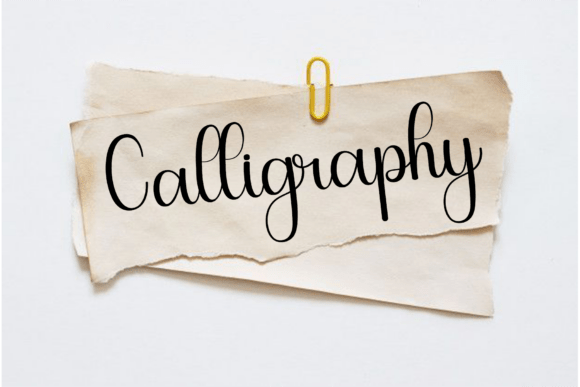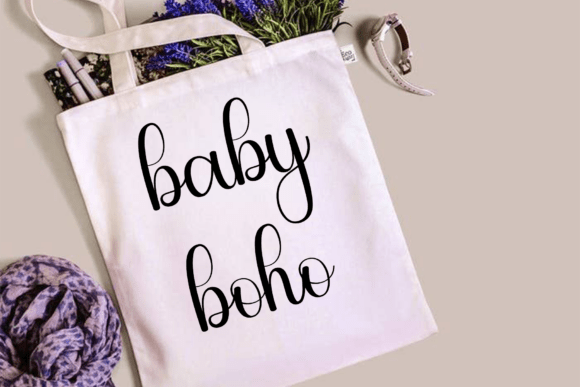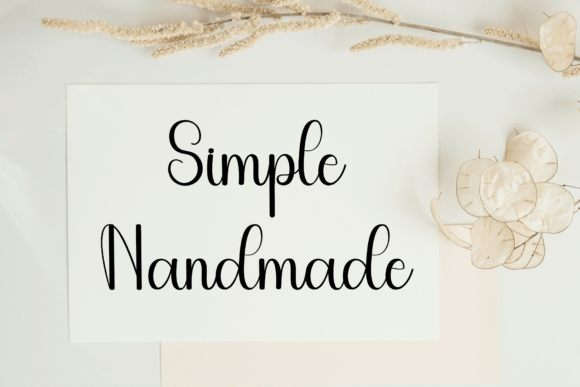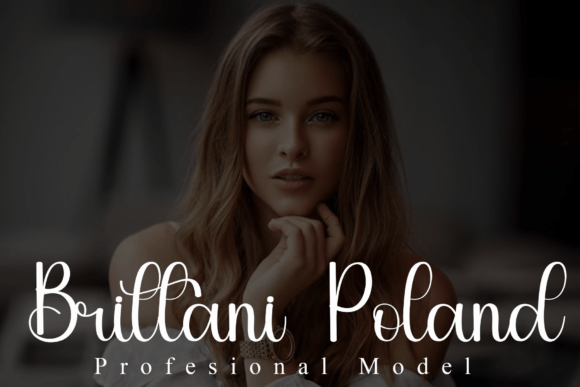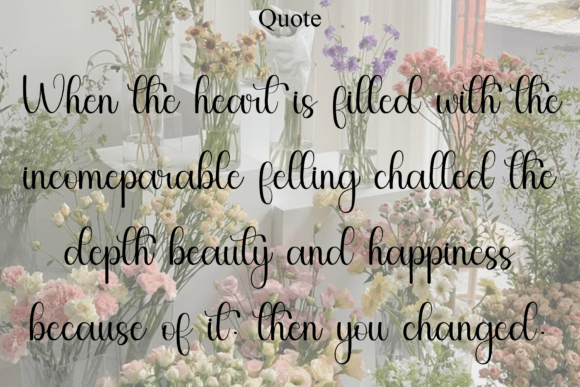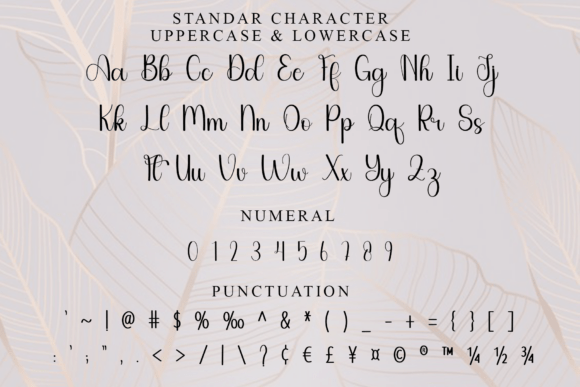
Deck the Halls with Whimsy: Introducing the Boho Font
That’s where the Boho Font comes in – a festive and merry typeface that captures the very essence of the holiday spirit. With its decorative elements and whimsical flair, this font is perfect for adding a touch of enchantment to your designs. Whether you’re crafting greeting cards, gift tags, or holiday-themed projects, the Boho Font is sure to bring a cheerful and nostalgic ambiance to your words.
Key Features of Boho Font
- Unique Characteristics: Boho Font features a unique blend of bohemian and vintage elements, with intricate details and ornate flourishes that add a touch of elegance and sophistication to any design.
- Script and Ligatures: The font includes a wide range of script and ligature styles, allowing designers to create complex and intricate typography that adds depth and visual interest to their designs.
Boho Font Review
Overall, I found the Boho Font to be a charming addition to any design project. It has a unique, eclectic feel that can add a touch of bohemian whimsy to text-based elements.
- ✨ The Boho Font’s organic, handwritten feel makes it perfect for adding a personal touch to quotes, headings, and other text-based elements.
- ✨ The font’s irregularities and imperfections give it a unique, handmade quality that can add character to your designs.
- ✨ The Boho Font is highly customizable, with a wide range of OpenType features and stylistic sets to help you achieve the perfect look.
However, I did encounter a few limitations:
- ⚠️ The Boho Font can be difficult to read in certain contexts, particularly in small sizes or at high resolutions. Be sure to test it thoroughly before using it in production.
- ⚠️ The font’s organic feel can sometimes make it difficult to achieve a consistent look, particularly if you’re working with a large body of text.
Overall, I would recommend the Boho Font to designers looking to add a touch of personality to their work. While it may have some limitations, its unique charm and high level of customization make it a valuable addition to any design toolkit.
Tips for Getting the Most Out of Boho Font
Use Boho font for titles and headings to add a touch of elegance and sophistication.
Pair Boho font with other fonts to create a unique and visually appealing design.
Boho font is perfect for:
Travel and adventure branding.
Artistic and creative projects.